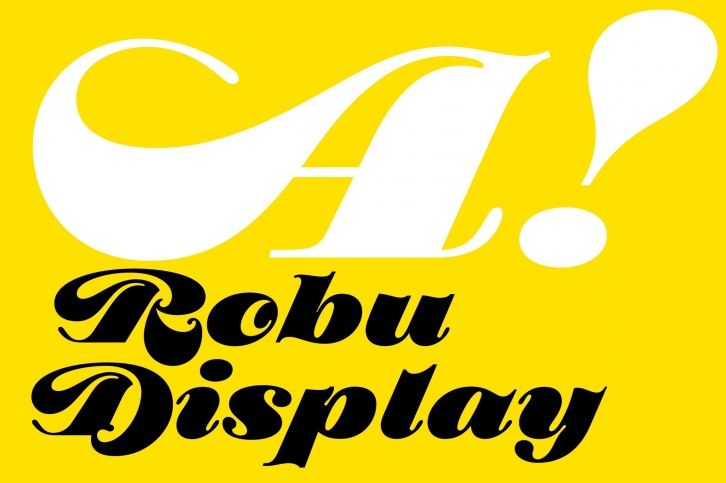
Robu Display is an homage to Stilla by François Boltana. With a complete redesign for the capitals, this typeface is great for big titles or logos with a vintagey feel.